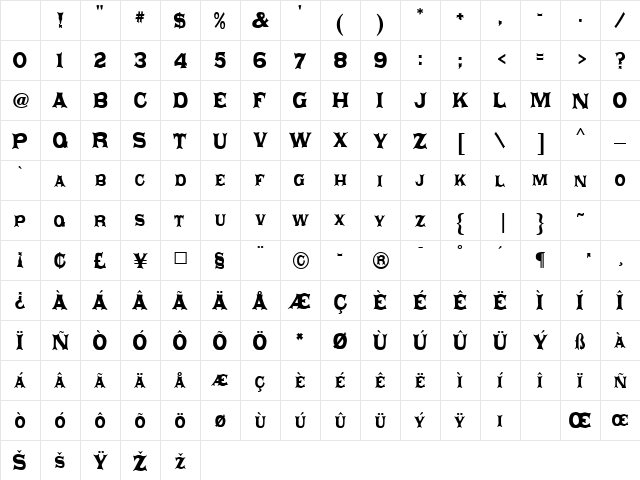
Daisy Wood echoes the hand-painted signage and woodblock typography of the American frontier, with a warm, rugged personality.
Font Pairing: Combine Daisy Wood with a simple slab or neutral sans - period-accurate companions reinforce the vintage feel without competing for attention.
Pro Tip: Use Daisy Wood for short, impactful bursts of text - it shines in poster headlines and product names rather than extended copy.